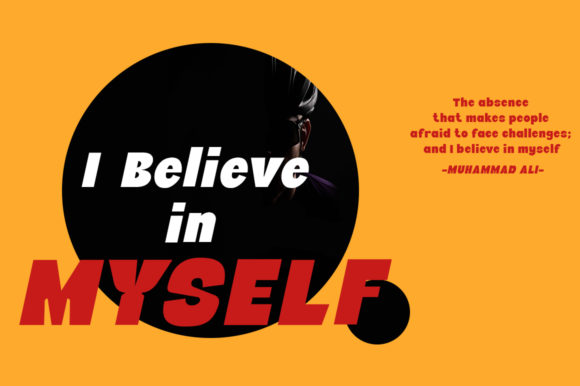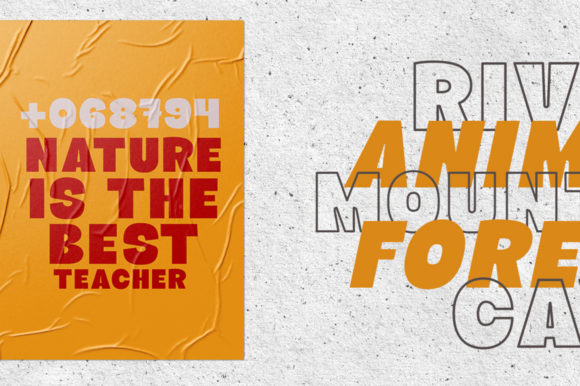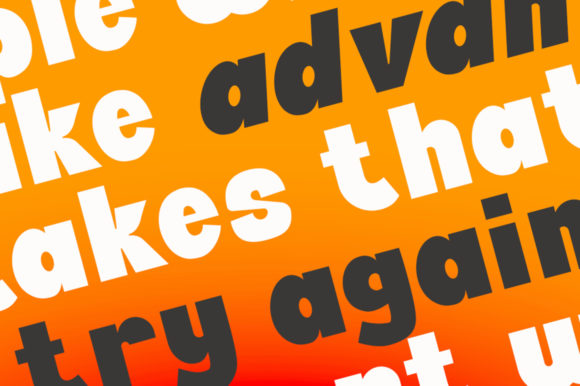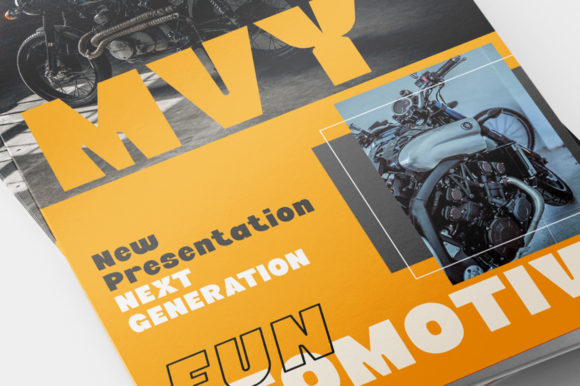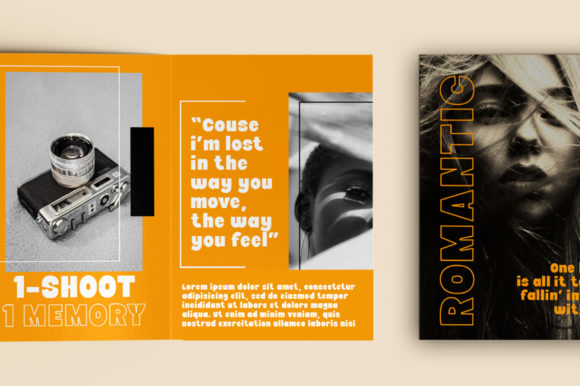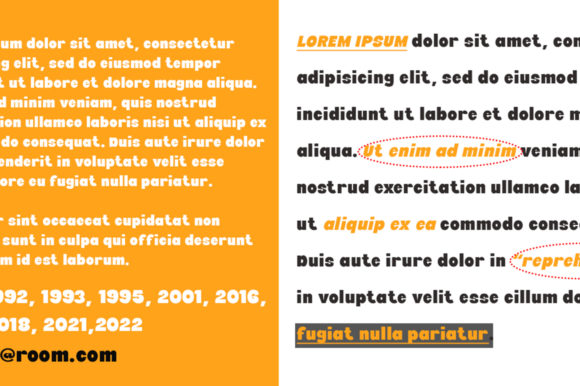
The Ultimate Guide to Auxiliary Font: Unlocking Creative Potential
I’ll never forget the design struggle I faced while working on a branding project for a trendy coffee shop. My client wanted a font that was bold, modern, and eye-catching, but I was stuck in a creative rut. That’s when I stumbled upon the Auxiliary font, and it instantly became my go-to choice. In this article, I’ll share my experience with this amazing font, its features, and how to make the most of it in various design platforms.
Auxiliary Font: The First Impression
Auxiliary is a cool, thick lettered sans serif font that’s masterfully designed to become a true favorite among designers, crafters, and creative hobbyists. Its bold and modern aesthetic makes it perfect for headlines, titles, and any design project that requires a strong visual impact.
- 💥 High-impact visibility: Auxiliary’s thick lettering ensures your text stands out, even at smaller font sizes.
- 🎨 Versatility: This font works well in various design contexts, from digital media to print materials.
- ✅ OpenType features: It supports a range of OpenType features, including glyphs and stylistic alternates, giving you more creative control.
- 🤔 Limited suitability for body text: Due to its bold nature, Auxiliary might not be the best choice for lengthy paragraphs or body text.
- ⚠️ Glyph compatibility: Some glyphs might not work seamlessly with all design software or platforms.
Auxiliary was designed with the goal of creating a versatile, high-impact font that could be used across various design platforms. Its creator aimed to craft a font that would inspire designers to push the boundaries of their creativity. Although the actual design process and inspiration behind Auxiliary might be shrouded in mystery, its effectiveness in bringing creative ideas to life is undeniable.
Q: What makes Auxiliary a good choice for creative projects?
A: Auxiliary’s bold and modern aesthetic, combined with its versatility and OpenType features, make it an excellent choice for creative projects that require a strong visual impact.
Q: Can I use Auxiliary for body text?
A: While Auxiliary can be used for body text, its bold nature might make it less suitable for lengthy paragraphs. It’s best used for headlines, titles, or short text elements.
Q: Is Auxiliary compatible with all design software?
A: Auxiliary is compatible with most design software, but some glyphs might not work seamlessly with all platforms. It’s essential to test the font in your specific design environment.